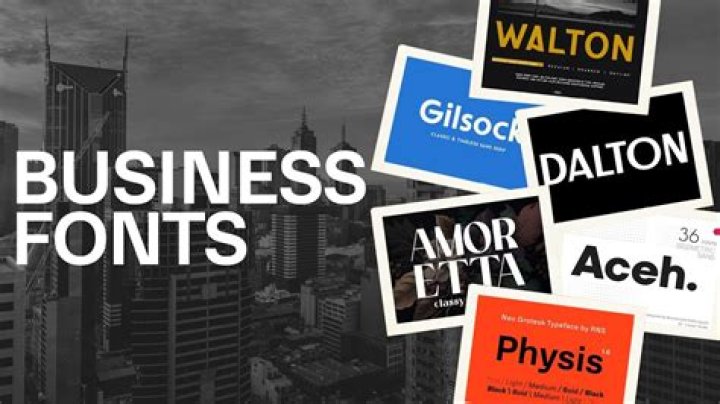
Many world-renowned companies use logos that are based on Helvetica—this is probably the most professional font of all times.
- Helvetica font.
- Futura font.
- Trajan font.
- Sabon font.
- Garamond font.
- Bodoni font.
- Rockwell font.
- Proxima Nova font.
What font goes well with serif?
Serif / Sans-Serif Combinations
- Cardo / Josefin Sans.
- Libre Baskerville / Montserrat.
- Lora / Source Sans Pro.
- Merriweather / Open Sans.
- Merriweather / Source Sans Pro.
- Playfair Display / Open Sans.
- PT Serif / Open Sans.
- Roboto Slab / Open Sans.
What font goes well with sans serif?
Generally speaking, Old Style serifs such as Bembo, Caslon and Garamond will combine well with Humanist sans serifs, such as Gill Sans and Lucida Grande.
How do I pair a font like a pro?
11 Tips for Pairing Fonts Like a Pro
- Pair Two Fonts.
- A Chunky Font Pairs Well With a Skinnier One.
- Try Tight Kerning With.
- Two Fonts With Complementary Moods.
- Use Serif and Sans Serif Together.
- Try a Traditional Heading with a Decorative Body.
- Use a Decorative Heading with a More Traditional Body.
What is the best font style?
The 10 best fonts
- Akzidenz-Grotesk. Probably the best typeface ever designed.
- New Baskerville. Probably the best serif typeface ever designed.
- DIN 1451.
- Franklin Gothic.
- HTF Didot.
- Gotham.
- Knockout.
- Gill Shadow.
What is a good business font?
On printed products, sans-serifs work best for business names or headings since they’re easy to read at a glance. Sans-serifs are usually the best kind of modern font for business cards, since they convey simplicity and minimalism. Sans-serif fonts are also used for digital display text.
What is a professional looking font?
Helvetica / Helvetica Neue / Helvetica Now Without a doubt, Helvetica is the most heavily used font by professionals in graphic design.
What is the best font?
What font goes with public Sans?
It goes well with Montserrat, Brandon Grotesque, Roboto, Lucida Grande, Bitter, Source Sans Pro, Publico, Minion, Lato and Georgia.
How do I choose a font combination?
Here are 11 tips to help you combine fonts that belong together.
- Pair Two Fonts.
- A Chunky Font Pairs Well With a Skinnier One.
- Try Tight Kerning With.
- Two Fonts With Complementary Moods.
- Use Serif and Sans Serif Together.
- Try a Traditional Heading with a Decorative Body.
- Use a Decorative Heading with a More Traditional Body.
How to pair fonts?
Determine the weight of your primary font. If you’ve chosen a heavier weighted font,opt for a complimentary,thinner font.
What is the best font for a website?
Hence, the best fonts for your website content are probably Arial and Verdana. Arial is modern and professional — always a safe bet with all ages. Meanwhile, Verdana is also modern and professional, but more stylish — perhaps making it more appealing to younger audiences.
What is the basic font?
What you call basic fonts are called “system fonts” and are available across different browsers and platforms. This makes them a common base which designers can work from. If a designer wants to target less common fonts, they can use web fonts, which are an HTML5 and CSS3 specification.